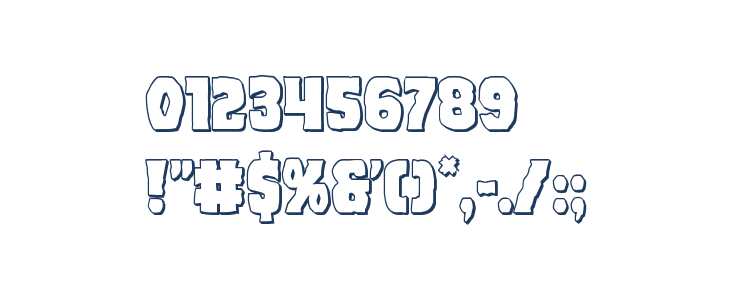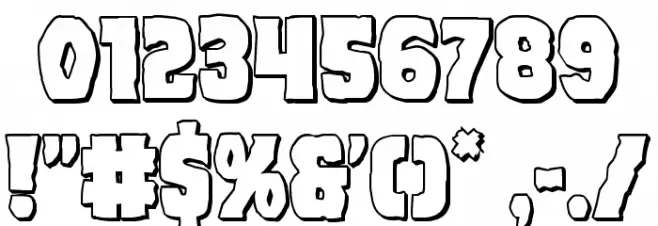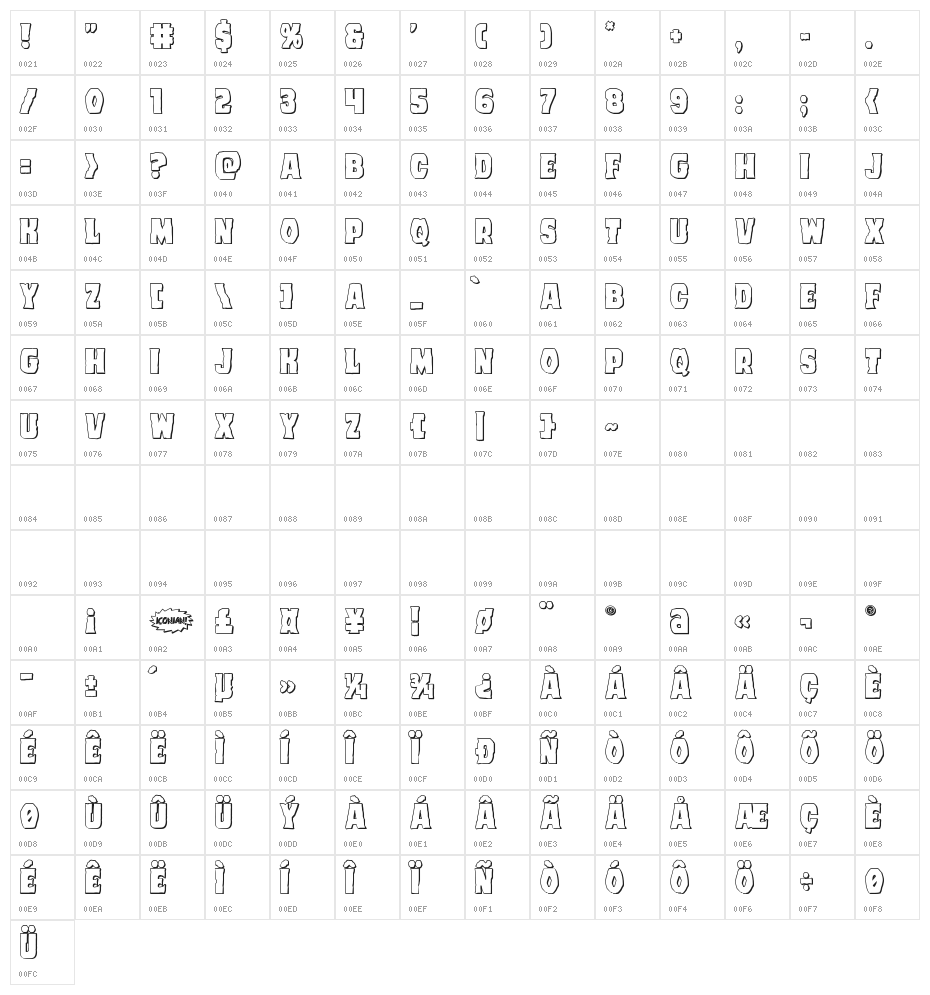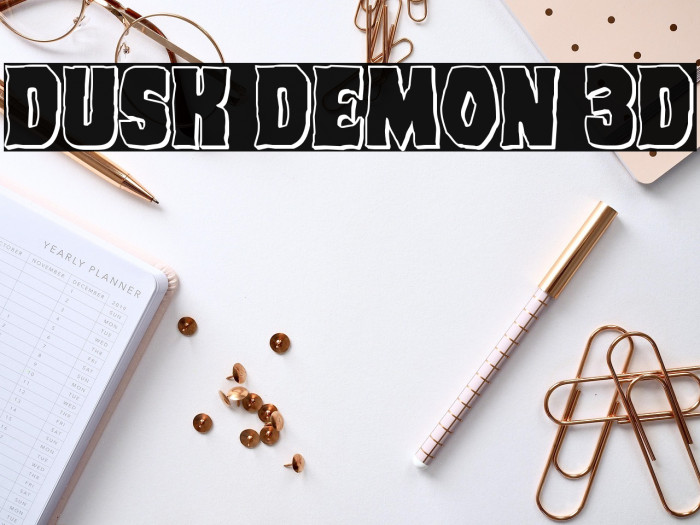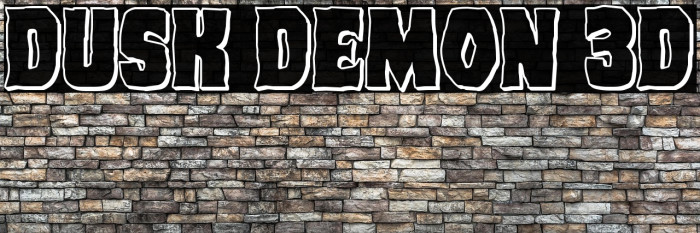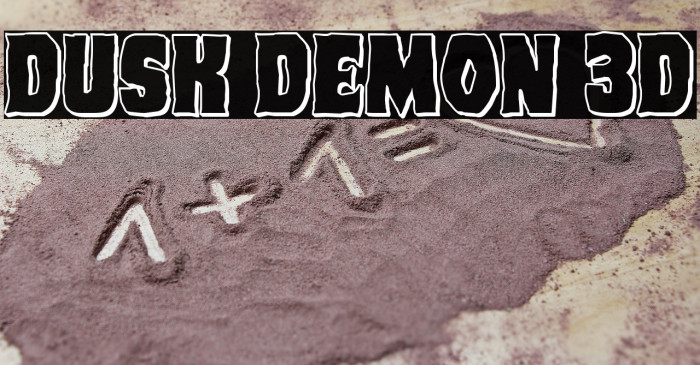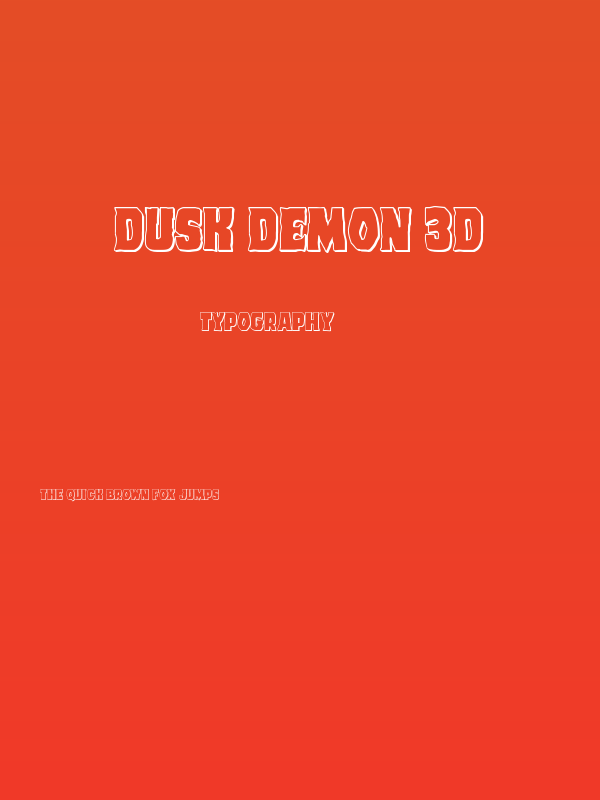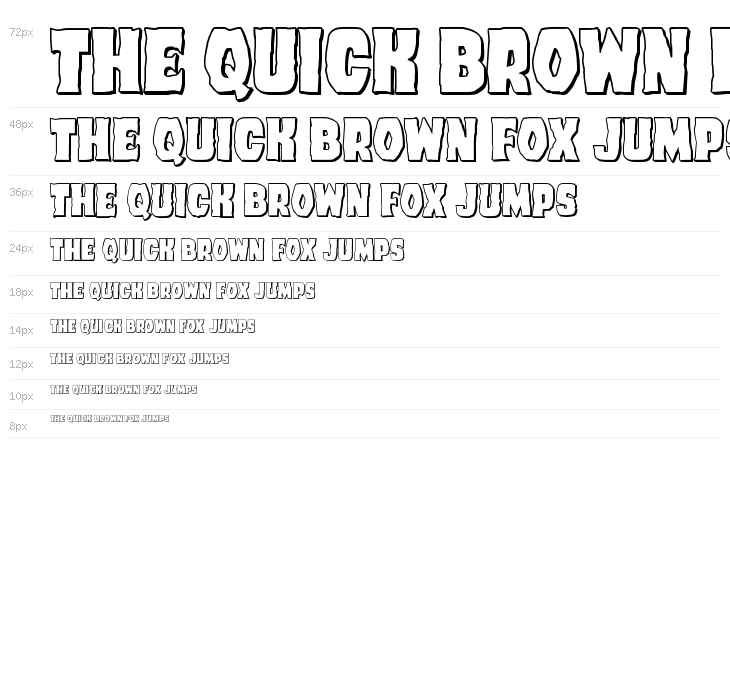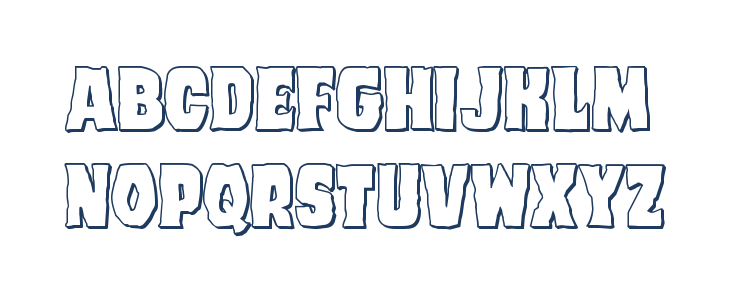
Dusk Demon 3D Font
This font features a bold, three-dimensional style with a playful and slightly rugged appearance. The characters are outlined, giving them a shadowed effect that adds depth and dimension. The edges are irregular and slightly jagged, contributing to a hand-drawn, comic-like aesthetic. The uppercase and lowercase letters maintain consistent proportions, while the numerals and special characters are designed to match the overall style. This font's unique appearance makes it stand out, ideal for projects that require a fun and eye-catching typeface.
Proposed ProjectsIdeal for comic books, children's posters, playful branding, and eye-catching headlines.